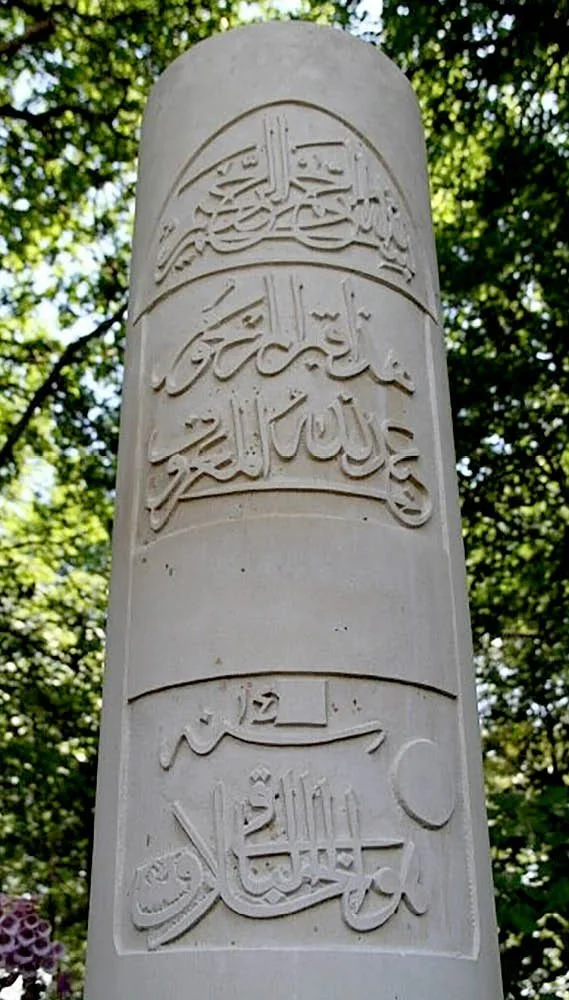
Ottoman Islamic Headstone (Shahid) by Karim Lahham
Beach Basebed Portland Stone
“My aim in carving a shahid was to reintroduce a stylistic template for a memorial that is entirely Islamic and equally European, and therefore capable of being developed in Britain.”
Translation of the Arabic:
Line 1: In the name of God the Merciful & most Compassionate
Line 2: This is the tomb of the forgiven
Line 3: The servant of God known as…
Line 4: (left blank for the name)
Line 5: (left blank for dates)
Line 6: He is the Creator the Self-Subsistent